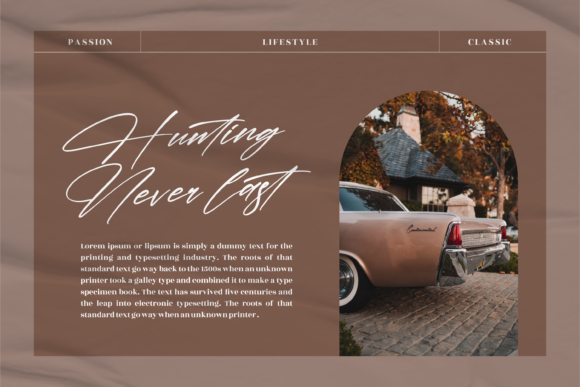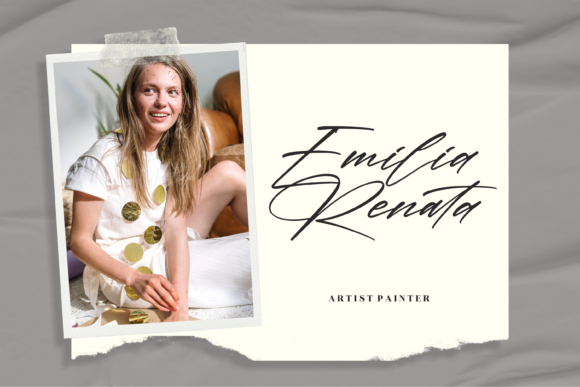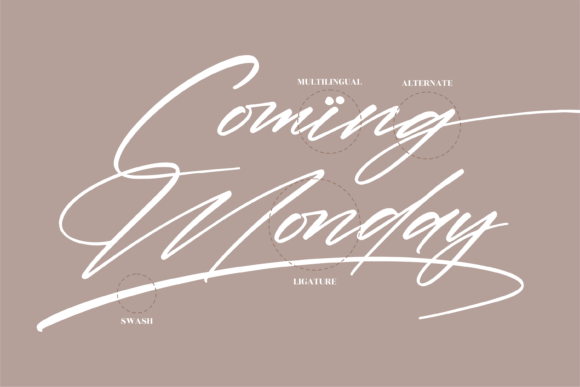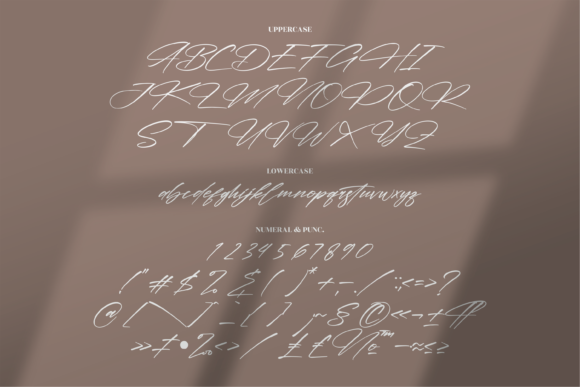
Hunterland Rebalion Font
About Hunterland Rebalion Font
Hunterland Rebalion is a lovely and timeless handwritten font. It is the best choice for creating eye catching logos, branding and quotes. Hunterland Rebalion is PUA encoded which means you can access all of the glyphs and swashes with ease!